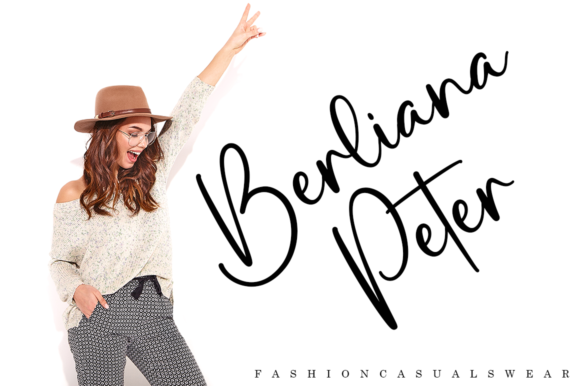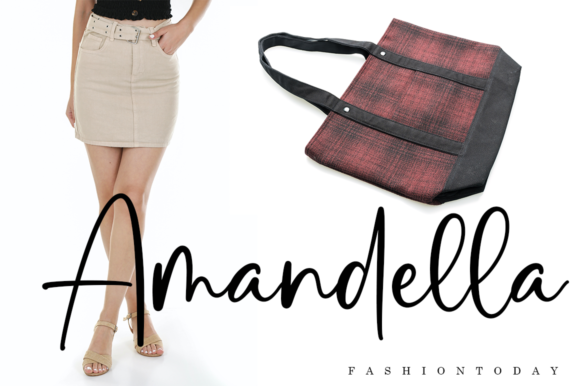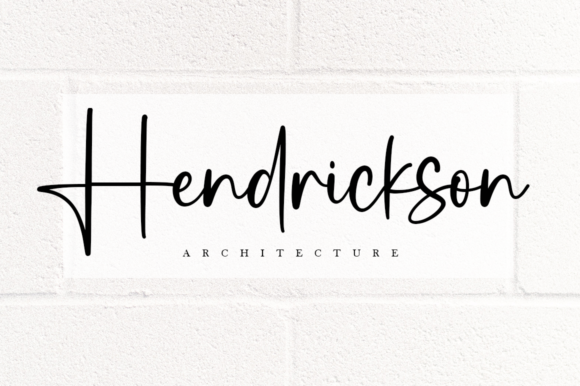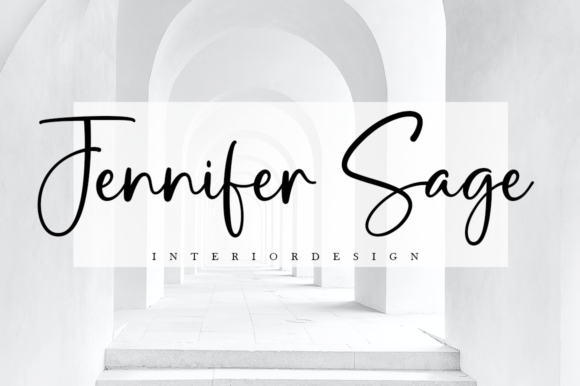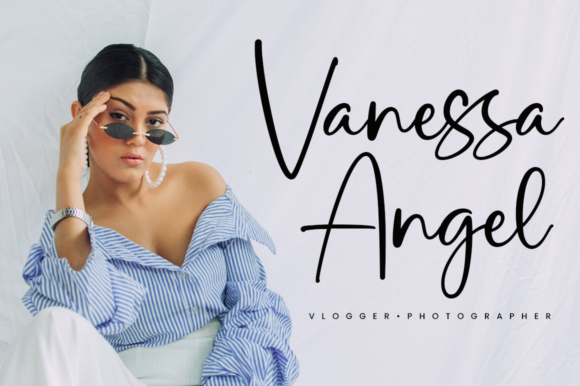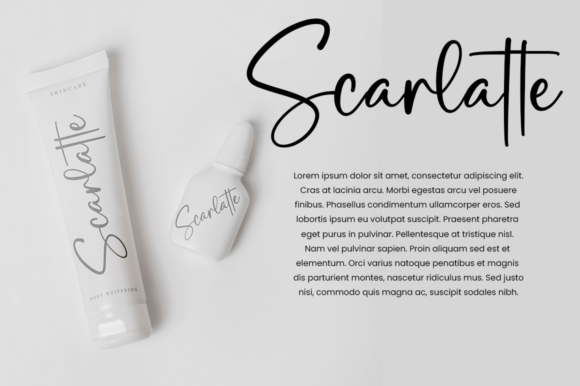
The Elegant Galantis Font: A Designer’s Delight
I’ll never forget the time I was working on a wedding invitation project, and my client asked for a font that was “elegant, yet playful.” I scoured the internet, tried out dozens of fonts, but nothing seemed quite right. That was until I stumbled upon the Galantis font. ✨ It was love at first sight! The delicate script, the flowing curves, and the sophisticated vibe – it was exactly what I needed. In this article, I’ll share my experience with the Galantis font, its features, and how to make the most of it in your designs.
- ✨ Elegant and sophisticated design
- 💫 Beautifully crafted for a luxurious feel
- 🎨 Versatile and suitable for various design projects
While the Galantis font is amazing, there are a few things to keep in mind: 🤔
- ⚠️ Limited availability of bold weights, which might not be suitable for headlines or titles
- ⚠️ Some characters may not work well in all contexts, requiring manual adjustments
A Practical Guide: Using Galantis in Your Designs
- Experiment with OpenType features, such as ligatures and stylistic alternates, to add a personal touch
- Explore the Glyphs panel to access alternative characters and stylistic sets
The Story Behind Galantis
The Galantis font was crafted with love by a talented type designer who aimed to create a beautiful, elegant script that would bring a touch of sophistication to any design project. Inspired by classic calligraphy and modern typography, Galantis is the result of meticulous craftsmanship and attention to detail.
Q: Is Galantis suitable for body text?
A: While Galantis is highly legible, it’s primarily designed for headlines, titles, and short paragraphs. For longer body text, consider using a more traditional serif or sans-serif font.
Q: Does Galantis support OpenType features?
A: Yes, Galantis supports various OpenType features, including ligatures, stylistic alternates, and glyphs. Experiment with these features to add a personal touch to your designs.